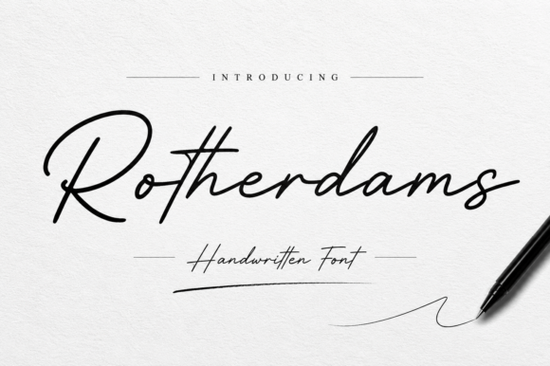
If you've been looking for a handwritten signature font that feels natural without sacrificing polish, Rotherdams Font deserves your attention. It blends smooth, flowing strokes with a refined personal style that fits branding, invitations, logos, and packaging. For designers and small business owners who want their text to feel both upscale and approachable, this script font strikes a solid balance.
What Does Rotherdams Font Look Like?
Rotherdams is a graceful handwritten signature font with natural pen-like movement built into every letterform. The strokes flow smoothly, mimicking the look of real handwriting while staying clean enough for professional use. It avoids the messy, overly casual look that some script fonts fall into, and it also avoids feeling stiff or robotic.
The result is a typeface that works well at various sizes from large display headlines down to smaller accent text. You get a warm, personal character paired with a timeless, professional finish. That combination is hard to find, and it's exactly why this font suits so many different design contexts.
Where Can You Use a Font Like This?
Signature fonts are surprisingly versatile. Rotherdams, in particular, fits a wide range of projects that designers, crafters, and small business owners work on every day:
- Wedding invitations and stationery The elegant flow pairs beautifully with floral layouts and minimalist designs alike.
- Logo design Ideal for boutique shops, salons, cafés, and lifestyle brands that want a handwritten touch.
- Social media graphics Quotes, sale announcements, and story templates look more personal with a script style.
- Packaging and labels Great for candle makers, soap brands, and small-batch product sellers who want premium-looking text.
- Photography watermarks A subtle signature-style mark that brands your images without being distracting.
- Print-on-demand designs Mugs, tote bags, t-shirts, and digital downloads all benefit from a polished handwritten font.
How Does It Compare to Other Script Fonts?
There's no shortage of handwritten and signature fonts available, so it helps to know where Rotherdams fits. Compared to Le Mores Signature Font, which leans into bold, dramatic strokes, Rotherdams takes a softer and more understated approach. It says "premium" without raising its voice.
If you need something more casual or playful, a preppy handwriting style gives off a youthful, upbeat energy that works well for stationery and school-related designs. Meanwhile, Something Gladdens brings its own warmth and personality with a slightly different letter structure.
The best font for your project depends on the mood you're going for. Rotherdams excels when you need elegance that doesn't feel cold a font that reads as both personal and polished.
What Should You Pair It With?
A signature font rarely works alone. Pairing it with the right complementary typeface makes your layouts look more intentional and professional. Here are a few combinations that work well:
- Rotherdams + a clean sans-serif Use the script for headings or names and a simple sans-serif for body text. This keeps things readable while adding visual depth.
- Rotherdams + a light serif For a classic editorial look, pair it with a refined serif. Great for wedding menus, lookbooks, and branding kits.
- Rotherdams + a bold display font Combine it with a strong display typeface like Wednesday for eye-catching contrast on posters or social media posts.
When pairing fonts, pay attention to weight and x-height. A heavy, chunky font next to a delicate script can look unbalanced. Aim for contrast in style but harmony in proportion.